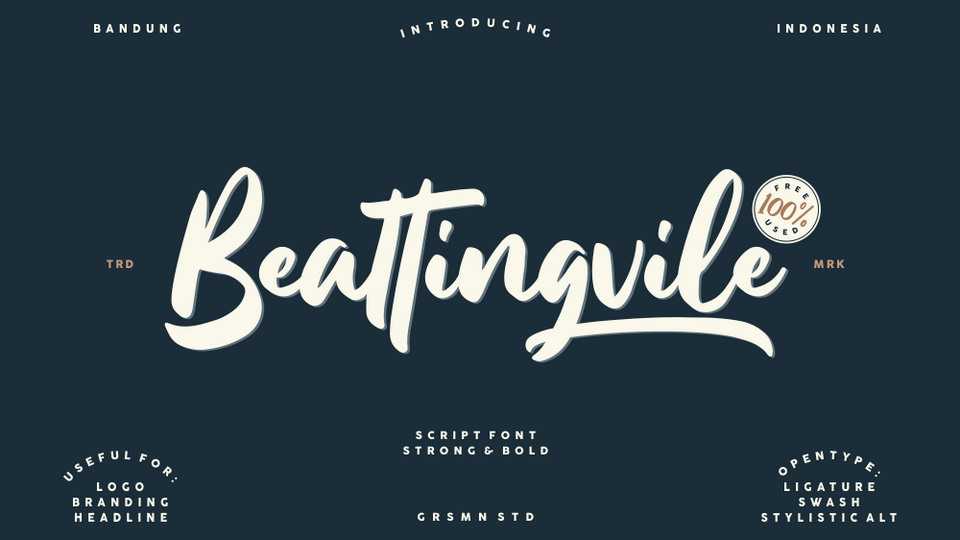
Download Beattingvile font, an amazing bold and strong hand lettered script with a vintage feel. Perfect for logos, labes and badges, branding, apparel, crafts, social media, headlines and other creative projects.
Designer: Garisman Studio